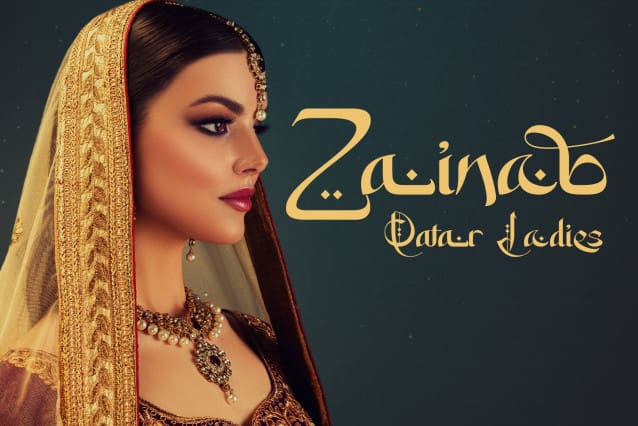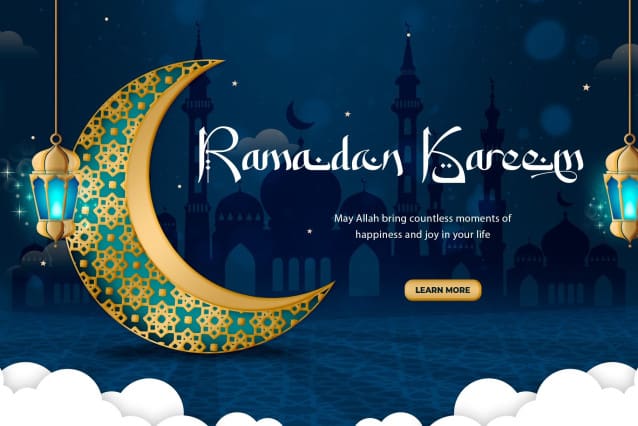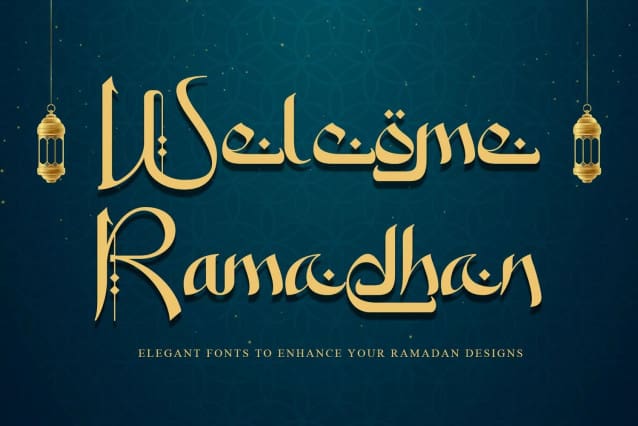
Welcome Ramadhan Font
Welcome Ramadhan Font is an Arabic-styled display typeface. This font features irresistible characters which make this font unique because it looks like the standard Arabian alphabet or is written in Arabic style. This Islamic Ramadhan Arabic font is perfect for any graphic design related to the Islamic style. Using this font, you will get an Arabic feel for every text you type. Made with serif characters so that it can be read internationally and does not have to be able to read by Arabic characters